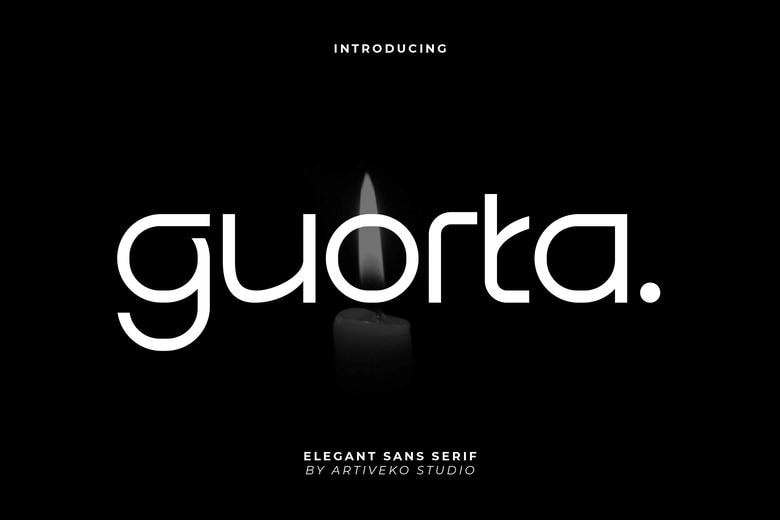
Guorta Font
Guorta is a clean and sophisticated sans-serif typeface, which is reflective of simplicity, balance, and modern sophistication. Guorta is ideal with its clean lines, refined geometry, and clean letterforms in branding, editorial layouts, webpage headers, product packaging, and social media graphics that need to have a modern and classic look.
Guorta Luxury Logo Font